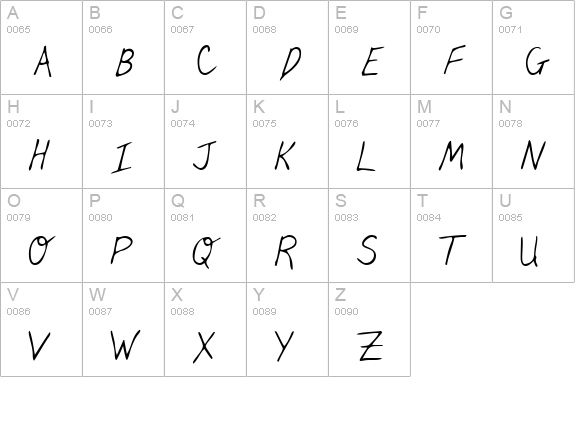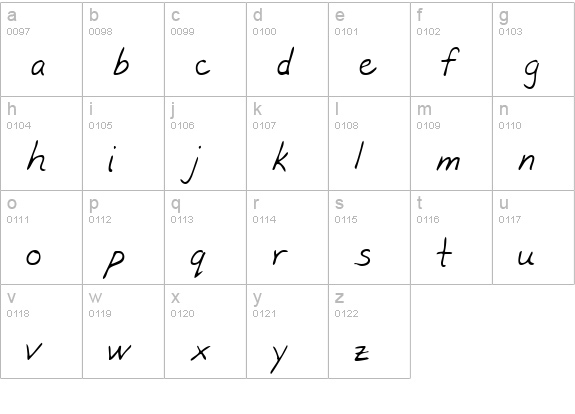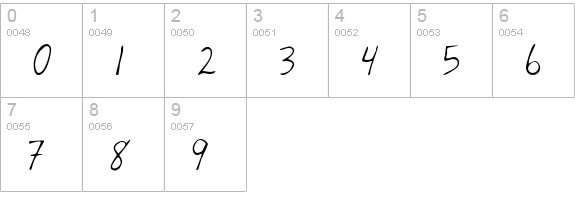
DunnsHand Regular Font Details
DunnsHand Regular is the standard, neutral variant in the DunnsHand typeface family \xE2\x80\x94 well suited to general body text, paragraphs, and standard typographic work.
DunnsHand Regular font is a charming and versatile typeface that exudes a sense of warmth and friendliness. With its handwritten style and elegant curves, this font is perfect for adding a personal touch to your designs. Whether you're creating invitations, greeting cards, or social media graphics, DunnsHand Regular font will elevate your projects with its unique flair. Best of all, DunnsHand Regular font is available for free download at FontsMarket.com. Take advantage of this opportunity to enhance your design projects with this beautiful and expressive font. Add a touch of creativity to your work with DunnsHand Regular font today!